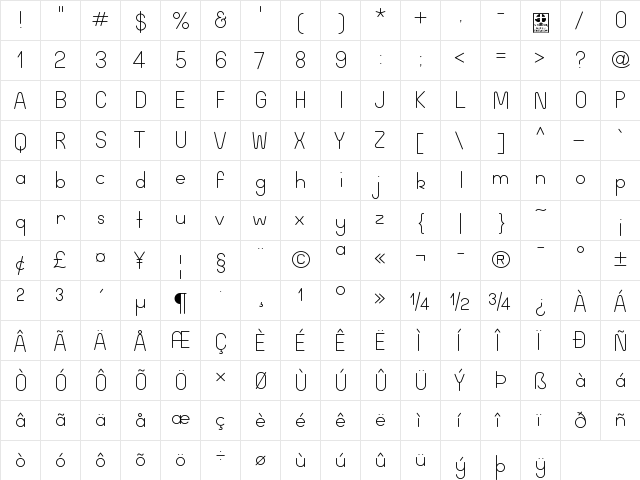
Wida Round Light Demo Regular Font Preview
| Foundry | StudioTypo |
| Designer | Mehmet Abac |
Design Context for Wida Round Light Demo Typeface
Wida Round Light Demo softens its letterforms with rounded terminals, giving it an approachable, friendly quality that works well in consumer-facing and digital contexts. The delicate stroke weight brings airiness and refinement to layouts.
A natural fit for tech startups, health and wellness brands, children's products, and friendly consumer apps.
Font Pairing: Pairs well with a rounded or humanist sans for body copy, maintaining the friendly tone without relying on Wida Round Light Demo to carry extended reading.
Pro Tip: Pair Wida Round Light Demo with a geometric sans for a balanced system — the rounded softness works as a warm counterpoint to harder-edged companions.